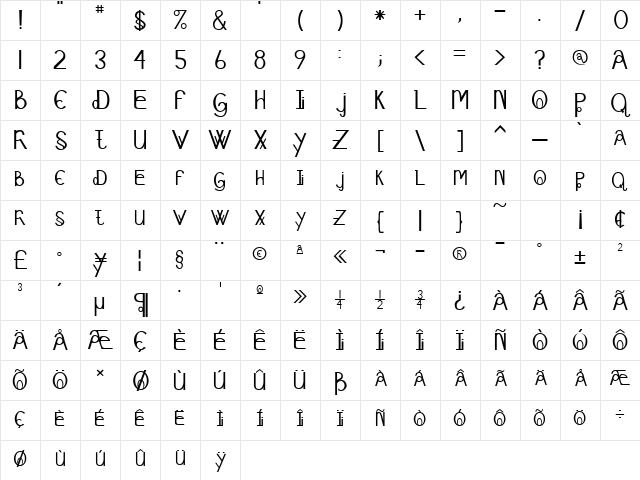
Schizcase Regular
Design Context for Schizcase Typeface
Schizcase is a composed and adaptable typeface that performs quietly and consistently across a wide range of design contexts.